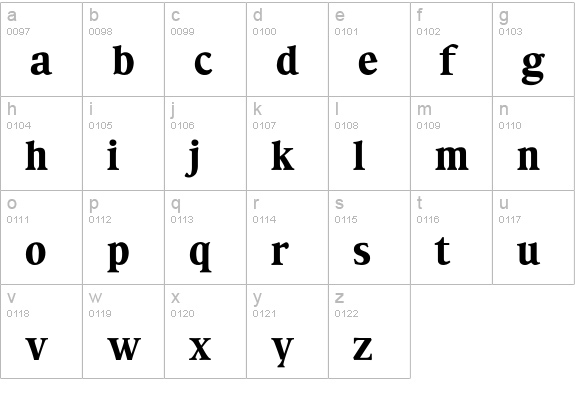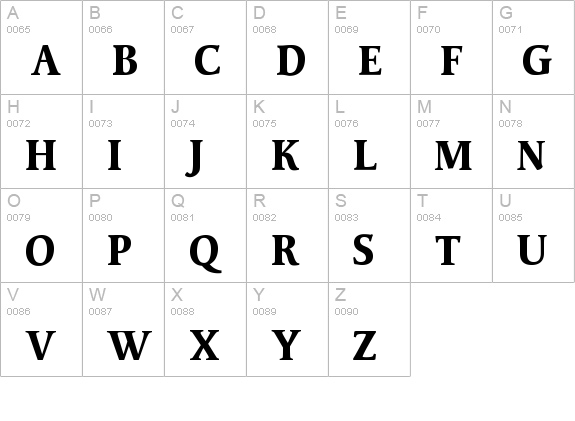
TFHabitat-Bold Font Details
TFHabitat-Bold is a strong, high-contrast variant in the TFHabitat typeface family \xE2\x80\x94 well suited to headlines, attention-grabbing titles, and strong calls-to-action.
TFHabitat-Bold is a bold and charismatic font that exudes strength and confidence. With its strong and robust letterforms, this font is perfect for making a bold statement. It commands attention and leaves a lasting impression, making it ideal for headlines, titles, and branding projects. The bold weight of TFHabitat-Bold adds an extra level of impact to any design. Its thick strokes and sharp angles create a visually striking composition that demands attention. Whether used in print or digital media, this font stands out from the crowd and captivates the audience. One of the best things about TFHabitat-Bold is that it is free! Yes, you heard it right. This incredible font is freely available to download at FontsMarket.com. Now you can add this powerful and eye-catching font to your collection without spending a dime. TFHabitat-Bold is not only visually appealing but also highly versatile. Its clean and modern aesthetic makes it suitable for a wide range of design projects, such as logos, posters, websites, and advertisements. It pairs exceptionally well with both serif and sans-serif fonts, allowing for endless creative possibilities. Whether you are a professional designer or a creative enthusiast, TFHabitat-Bold is a must-have font in your toolkit. Its bold and commanding presence will elevate your designs and make them stand out from the competition. So why wait? Head over to FontsMarket.com and download TFHabitat-Bold for free today!